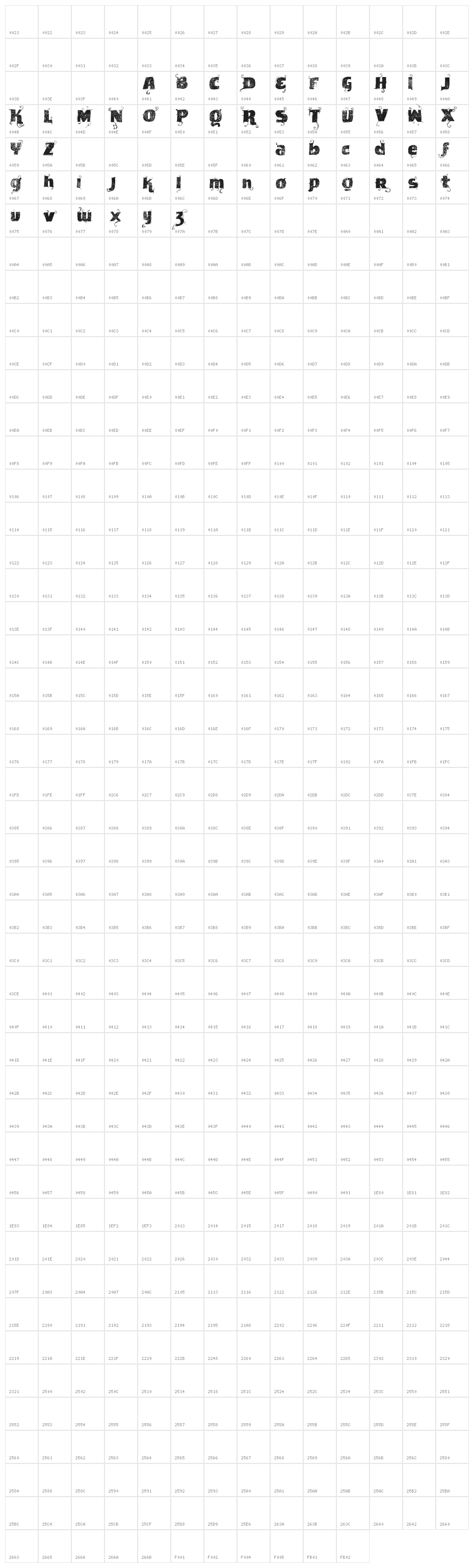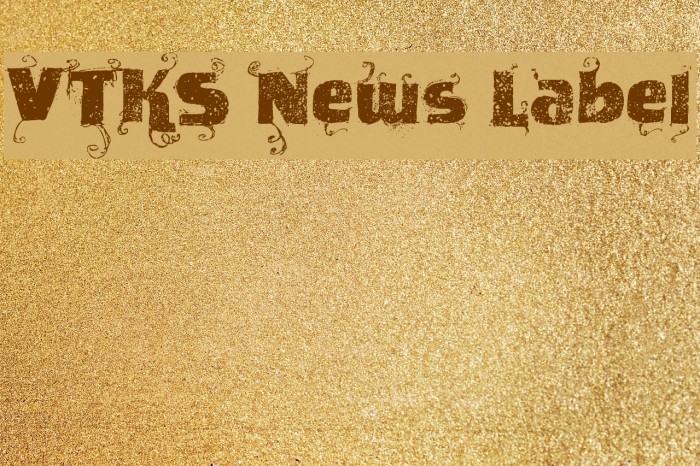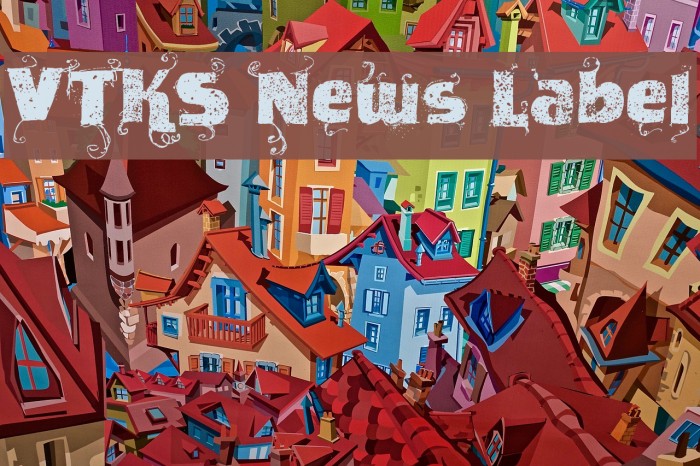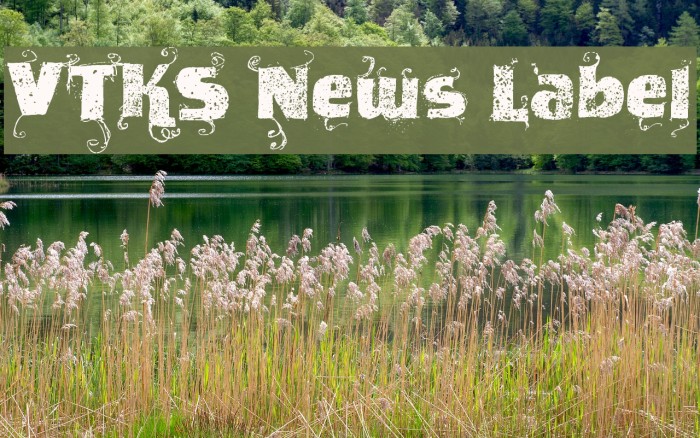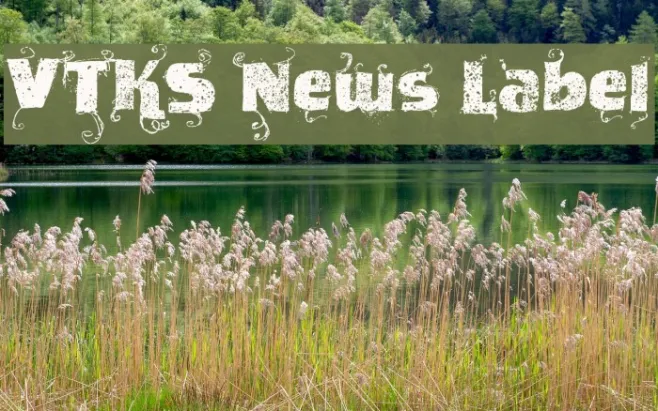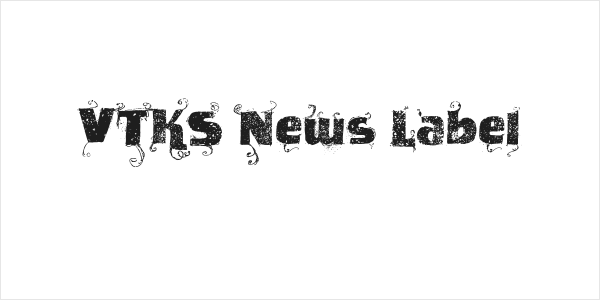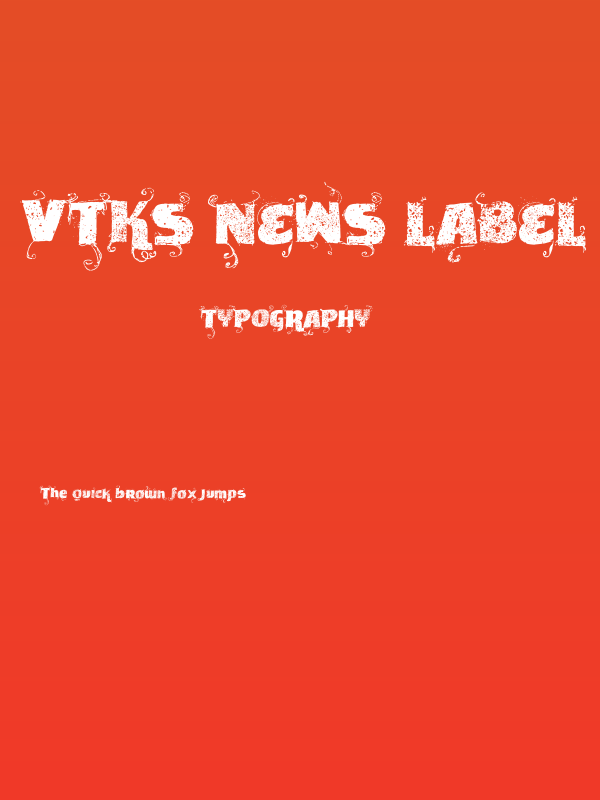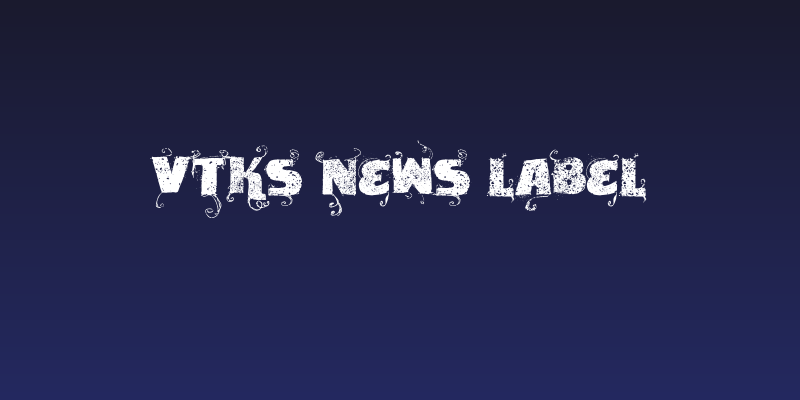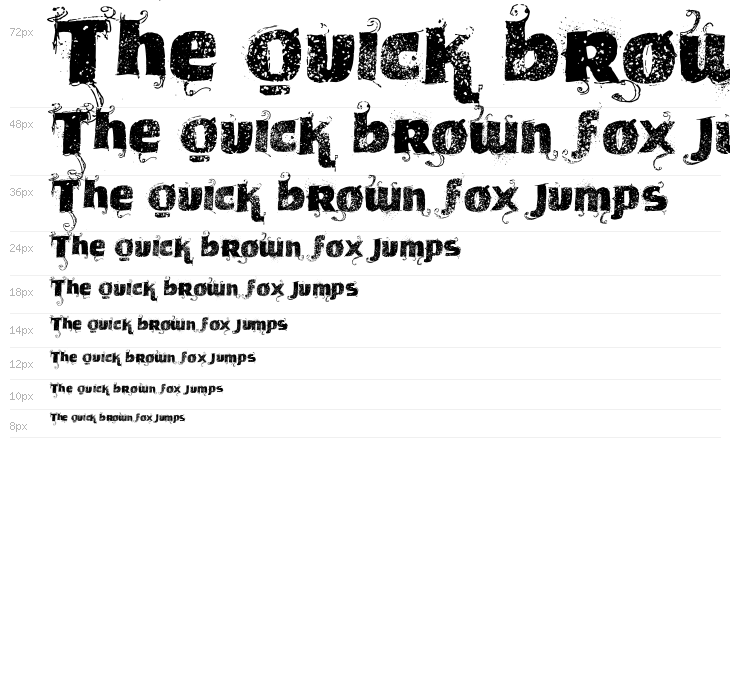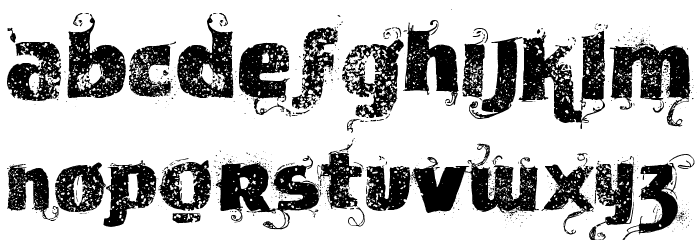
VTKS News Label Font
VTKS News Label Description
This font features a bold and decorative style with a distressed texture that gives it a vintage, grunge appearance. The uppercase and lowercase letters are adorned with intricate swirls and embellishments, adding an artistic flair. The characters are bold and substantial, making them stand out with a strong presence. The font's unique design elements make it suitable for creative and eye-catching projects. The distressed texture adds depth and character, making it ideal for designs that require a touch of ruggedness and individuality.
| Overall Style | Vintage, Grunge, Decorative |
| Proposed Projects | Ideal for posters, album covers, vintage-themed designs, and creative branding. |